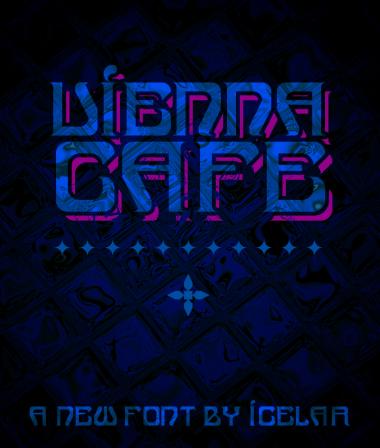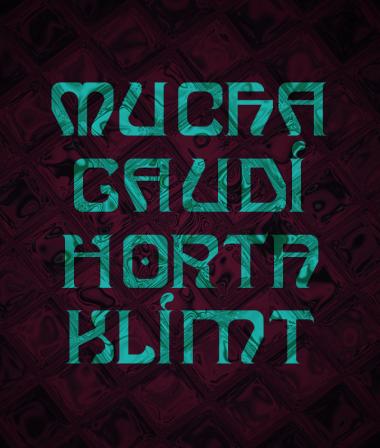
A little beauty. 10/10
You have done well considering the limitations imposed by a small grid. Personally, I would be working on a grid at least 50 squares high to attempt something like this :)
I have a serious problem: I love limitations. For me, the amazing thing about fontstruct is that you have to find your own way to make a font with just some basic shapes (well, actually, a looooot of basic shapes) and prove how it works on screen. If I had no restrictions at all, I'd never develop anything, and my ideas would still be rough doodles in a notebook, but here ideas become in tools everyone can use and critique to help improving.
I need a challenge. And working at small sizes is something I find pretty interesting. (usually because there's a point, when you have spent half an hour of your time in just one single character, and there are 210 waiting, when you start thinking that maybe you are not that good at this; and that's when you have to remember that how good you are is not important, but what do you have to say, and if that's important and useful for the rest of the people).
So, for me, working at pretty small sizes it's incredibly instructive. I always have to find an alternative way of doing. For many people is right the other way, and That's awesome!! I can't stop seen your work at the gallery thinking ¿how in this world has he done that?. That makes me try even harder. So many thanks for your encouragement and attention in every single thing I've done. Much appreciated.
Beauty! Enjoy this little piece of noveau art...
Nice design. The small grid may not do this as much justice, but the idea comes through. (I also like working in small scales and can relate.)
Excellent samples!
This can be very useful and a real beauty, as everyone can see in the first sample. But it's also my opinion, those ideas maybe deserve trying a "rework" on a higher gridsize...
All right, all right, you all have convinced me. let's see what I can do in a higher ground ... But I'll take my time. =)
Very rich unexpected and superb junction of bricks. You put the FS system once again on the top! My 10 2U!